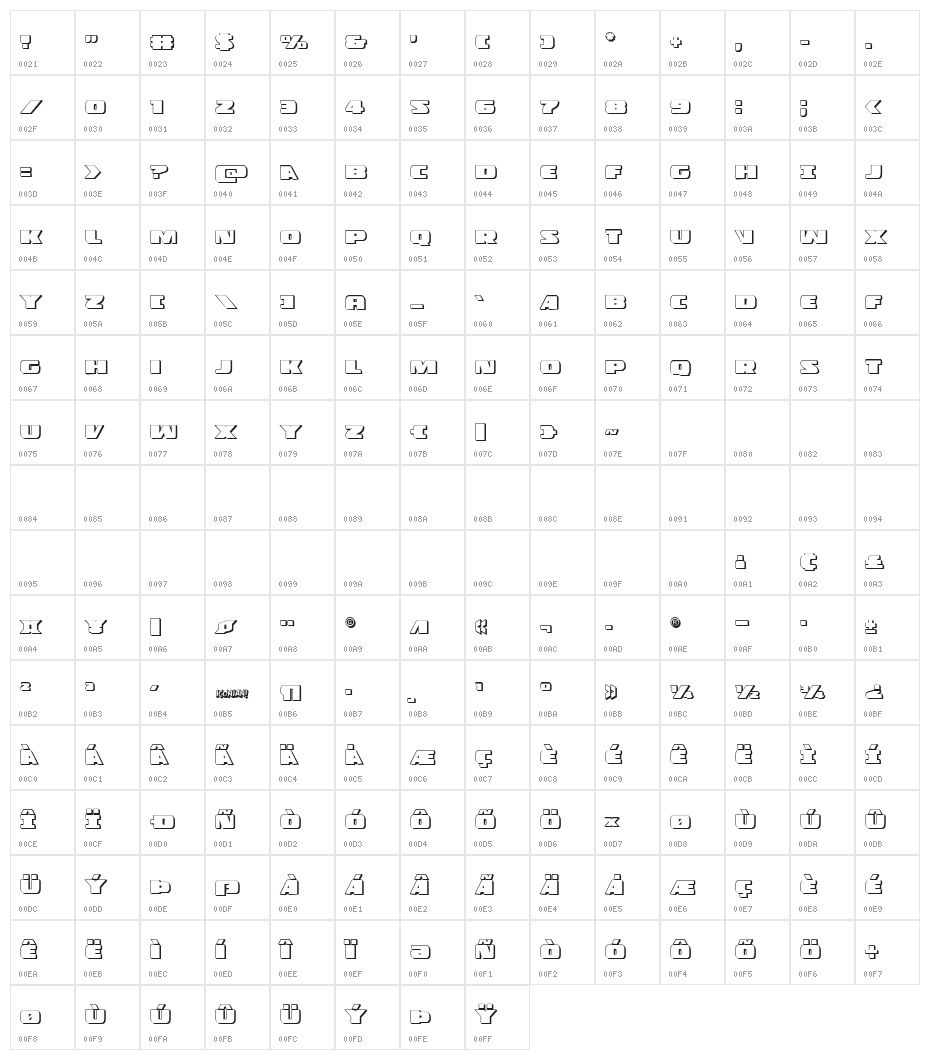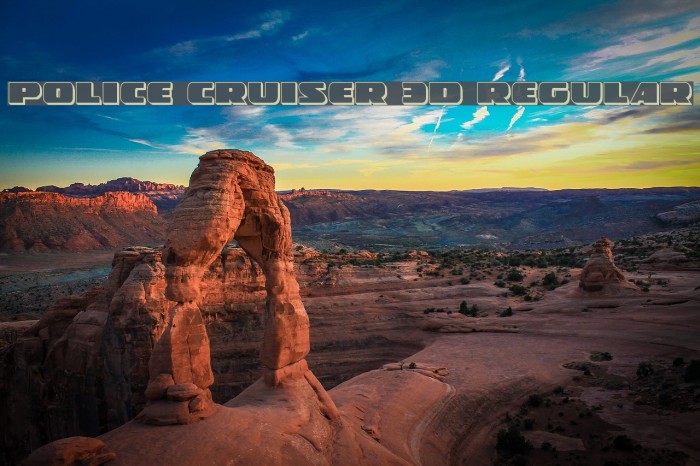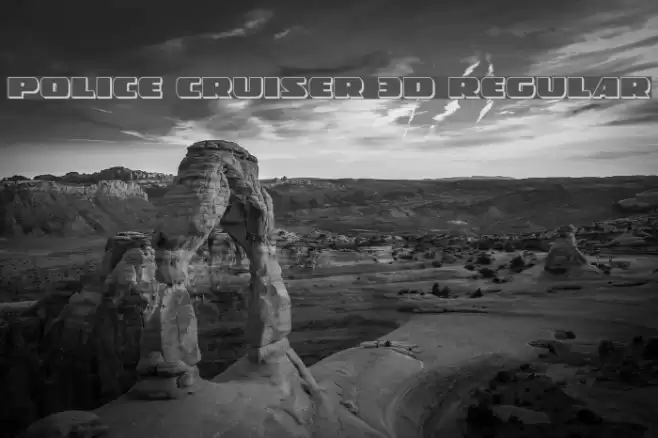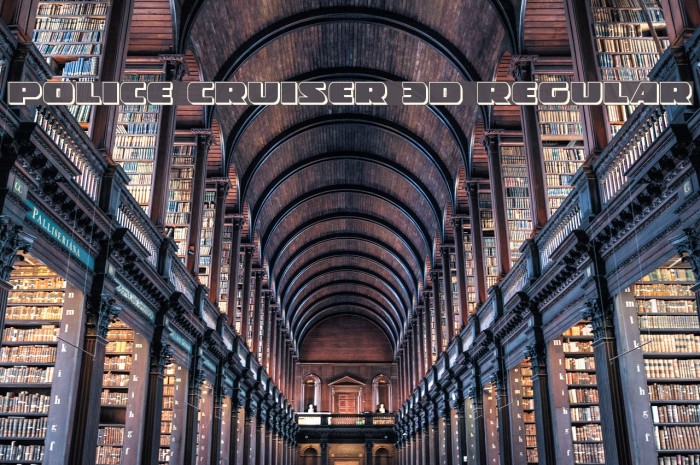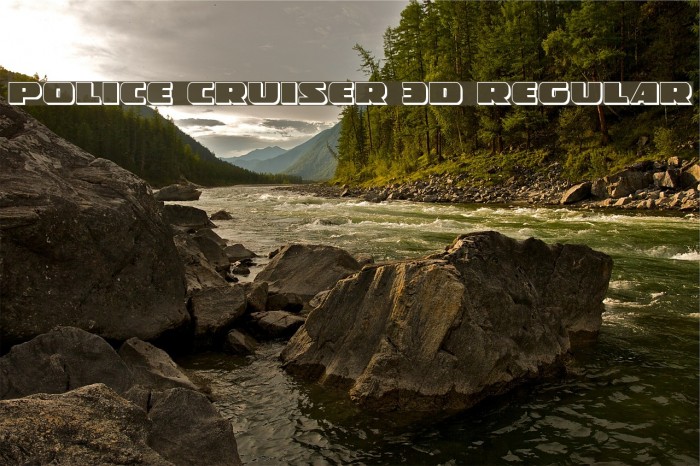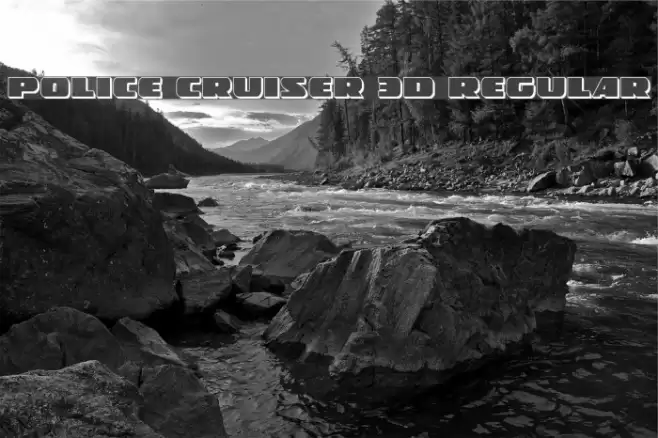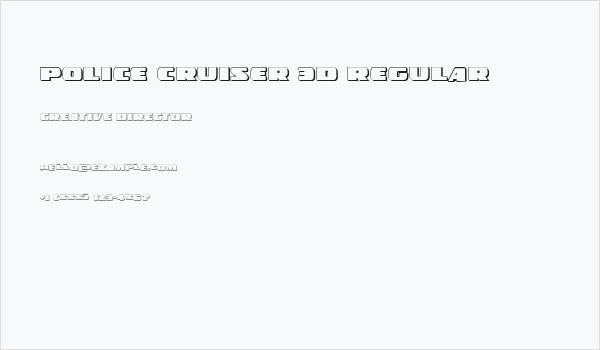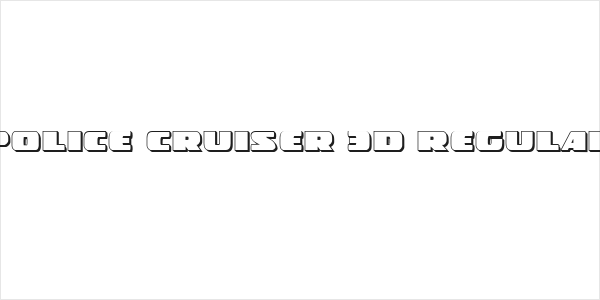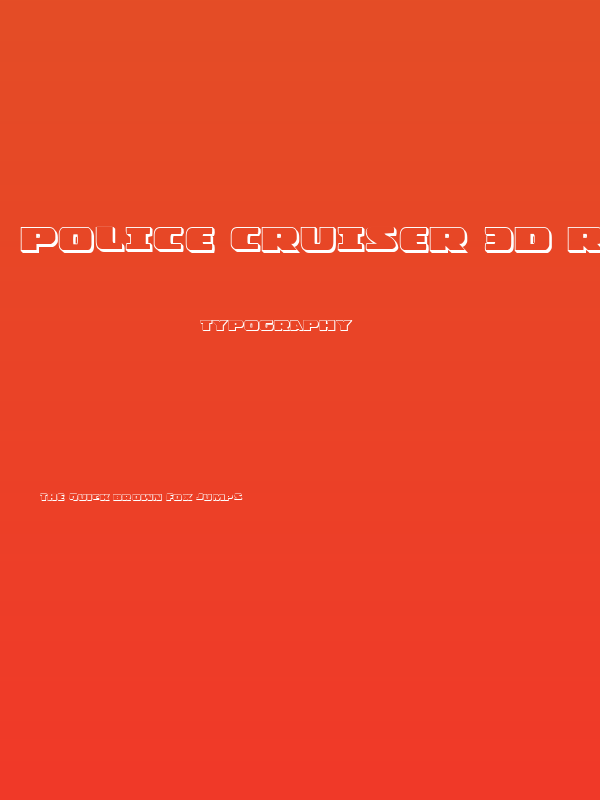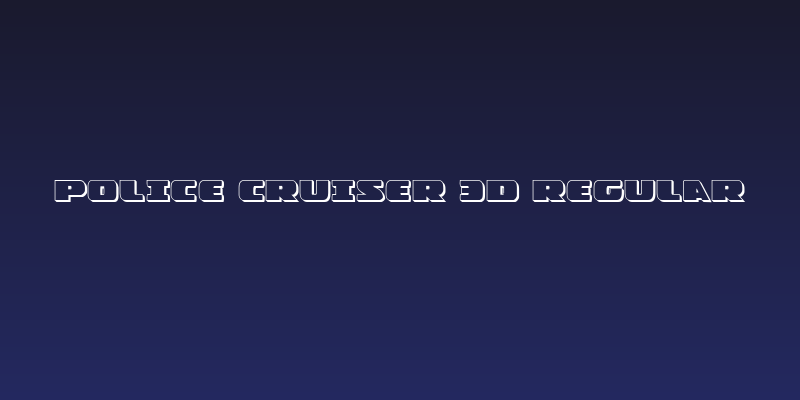
Police Cruiser 3D Regular Font
Police Cruiser 3D Regular Description
This font features a bold, three-dimensional design with a strong, impactful presence. The characters are outlined with a thick black border, giving them a distinct, blocky appearance. The interior of each letter is filled with a solid color, creating a striking contrast against the outline. The font's geometric shapes and sharp angles contribute to its modern and futuristic aesthetic. It is highly legible and commands attention, making it suitable for headlines and display purposes. The uniformity in the design of both uppercase and lowercase letters, as well as numbers and special characters, ensures consistency across different uses.
| Proposed Projects | Ideal for projects needing a bold statement, such as posters, logos, video game titles, and branding materials. |